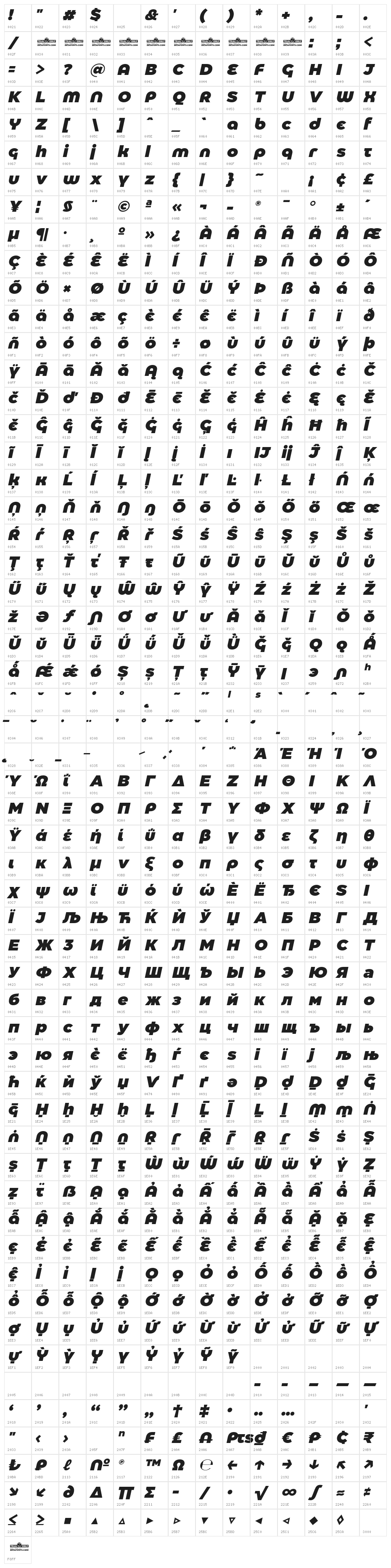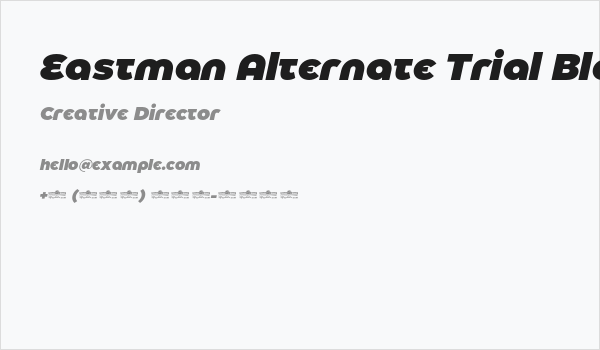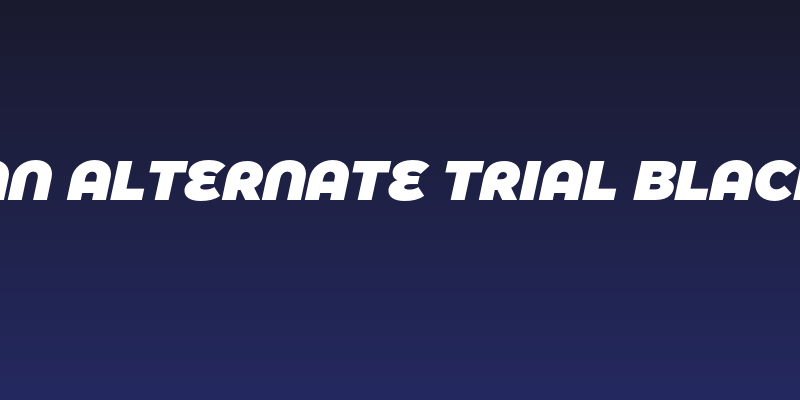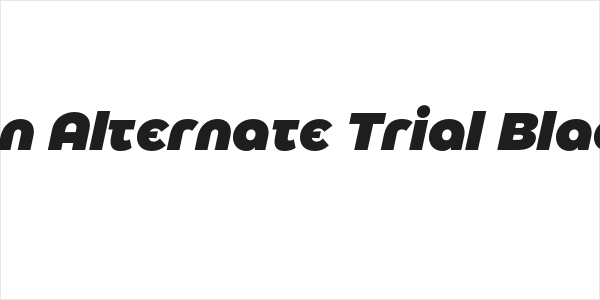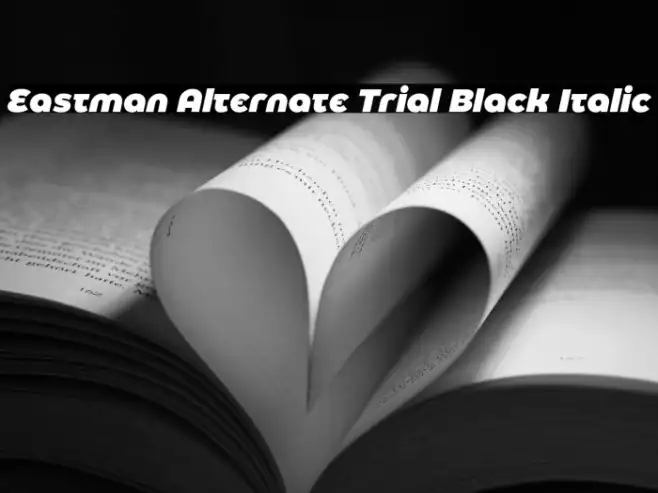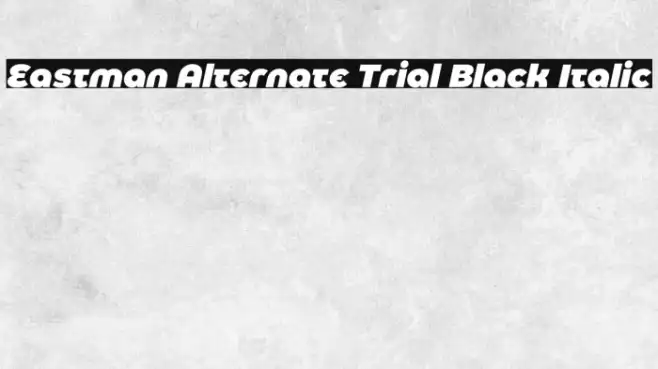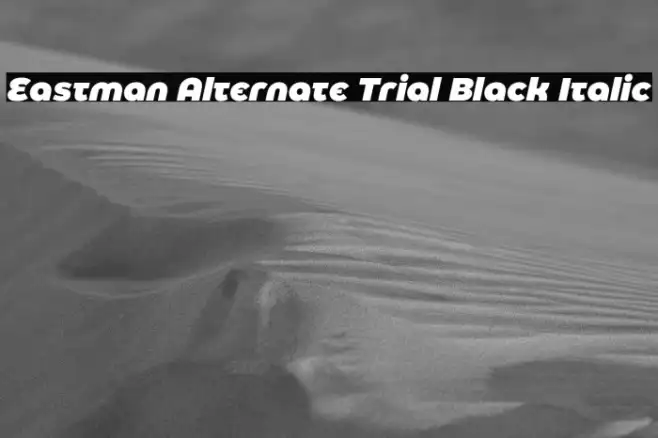
Eastman Alternate Trial Black Italic Font
Eastman Alternate Trial Black Italic Description
This font features a bold and dynamic style with a strong italic slant, giving it a sense of movement and energy. The characters are robust and thick, with a modern aesthetic that combines geometric shapes with smooth curves. The uppercase letters are particularly striking, with a uniform height and consistent stroke weight that enhances readability. The lowercase letters maintain the same boldness, with rounded edges that soften the overall look. The numbers and special characters are designed to match the bold and italicized style, ensuring consistency across all elements. This font is ideal for making a statement, with its high impact and visually striking appearance.
| Proposed Projects | Ideal for branding, advertising, headlines, and posters where a strong visual impact is desired. |